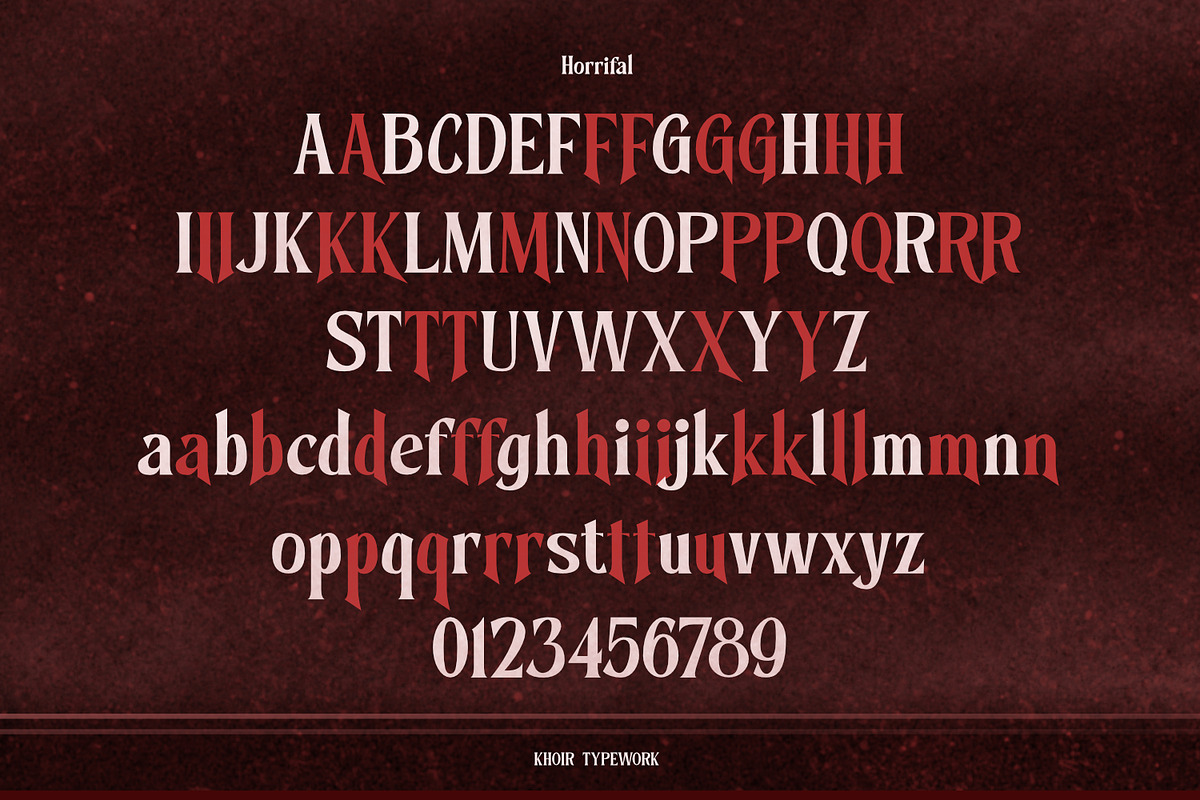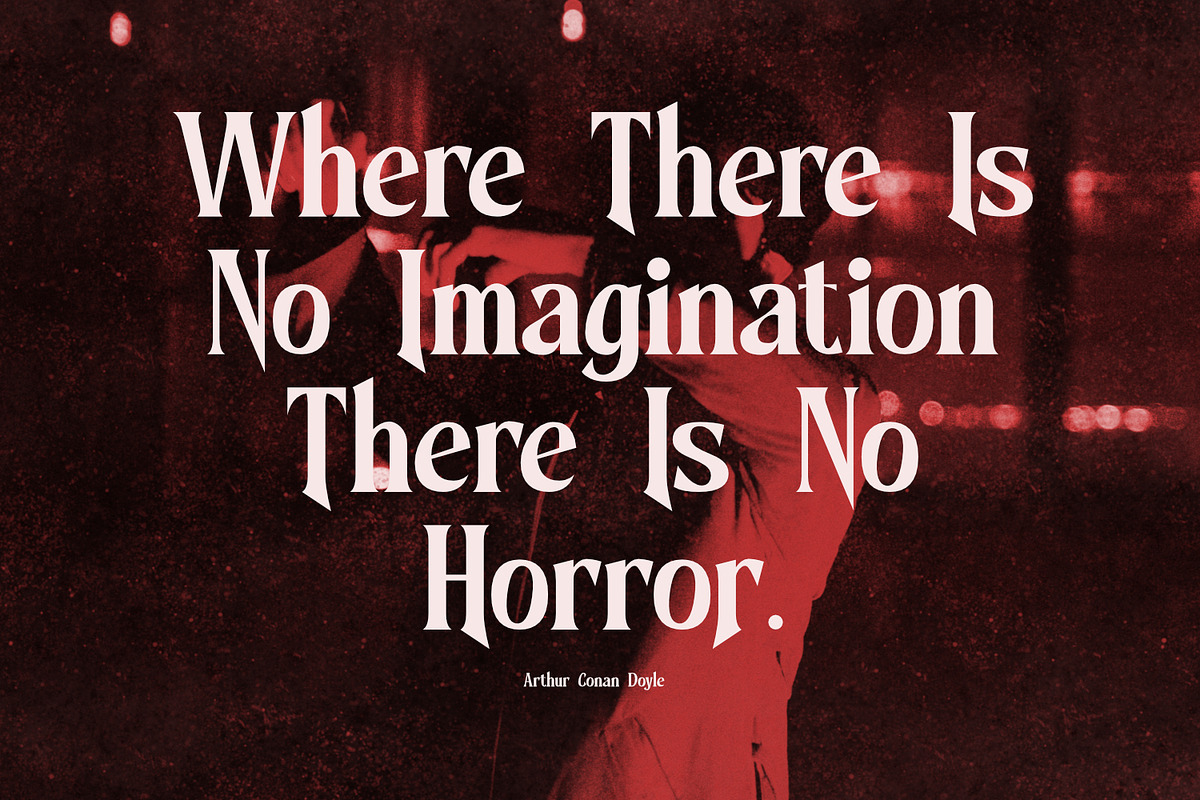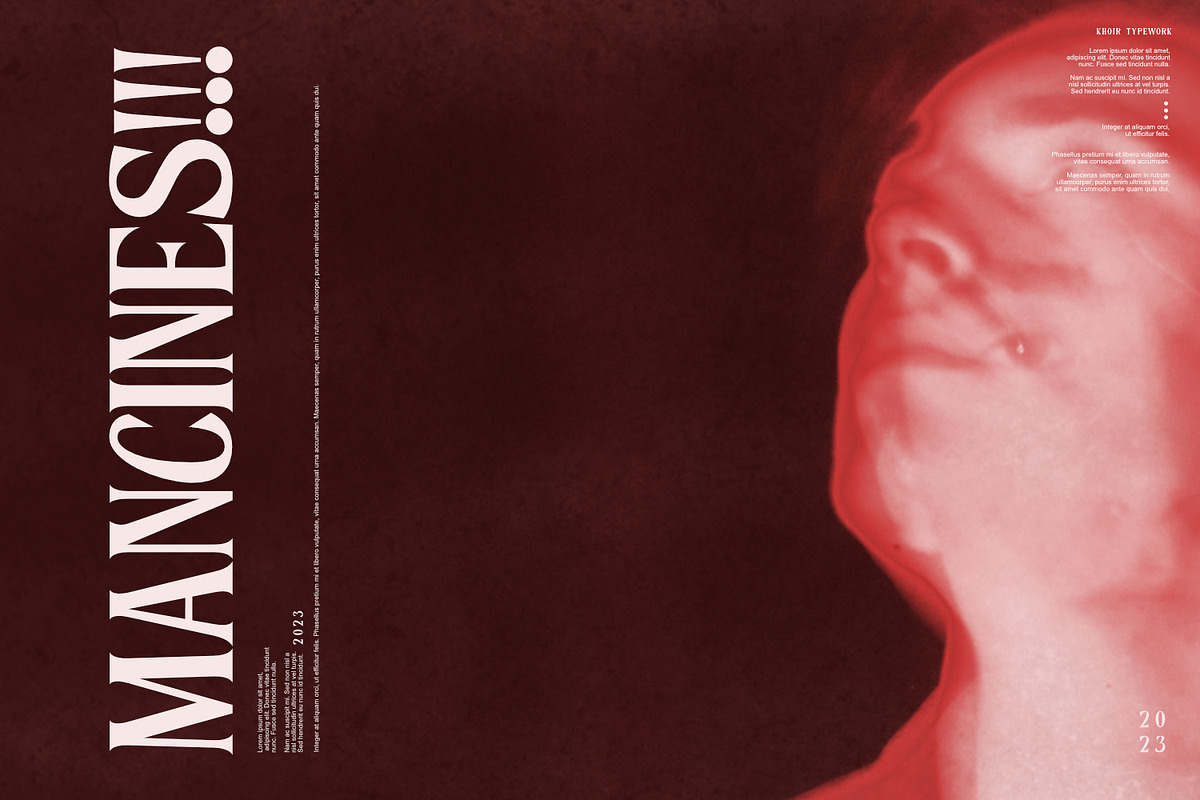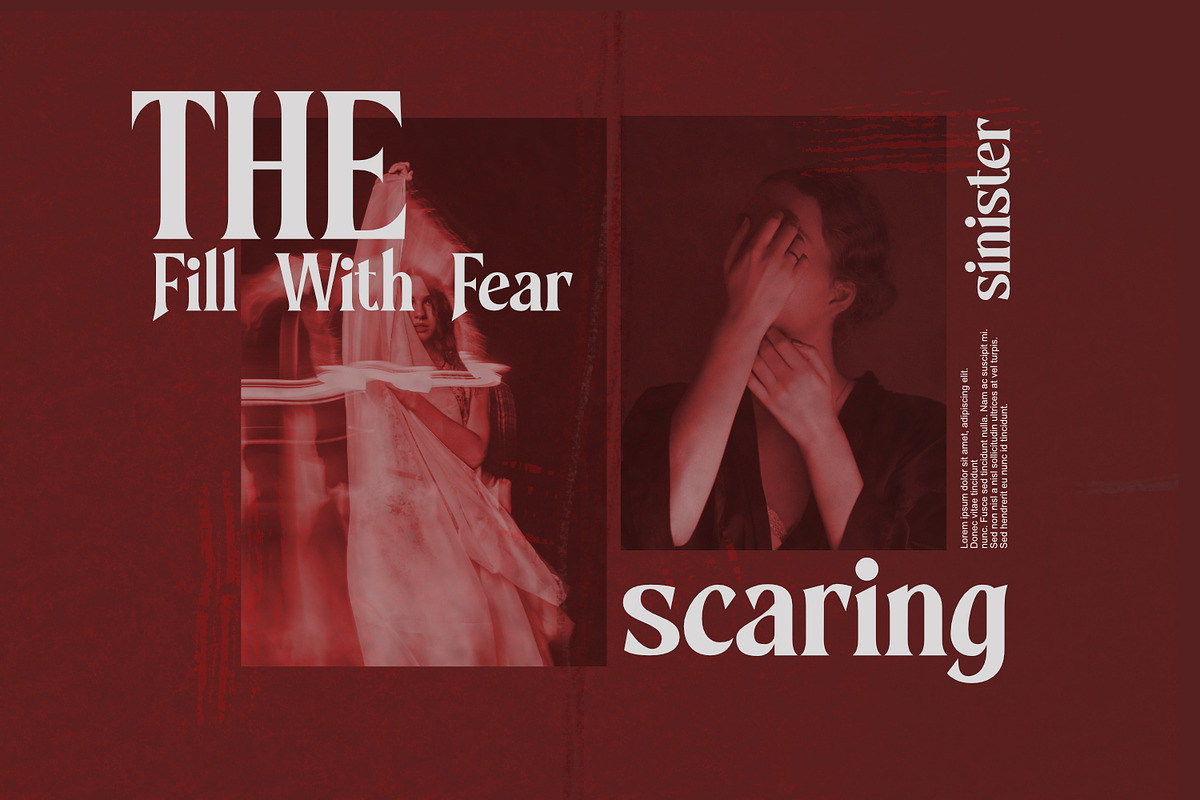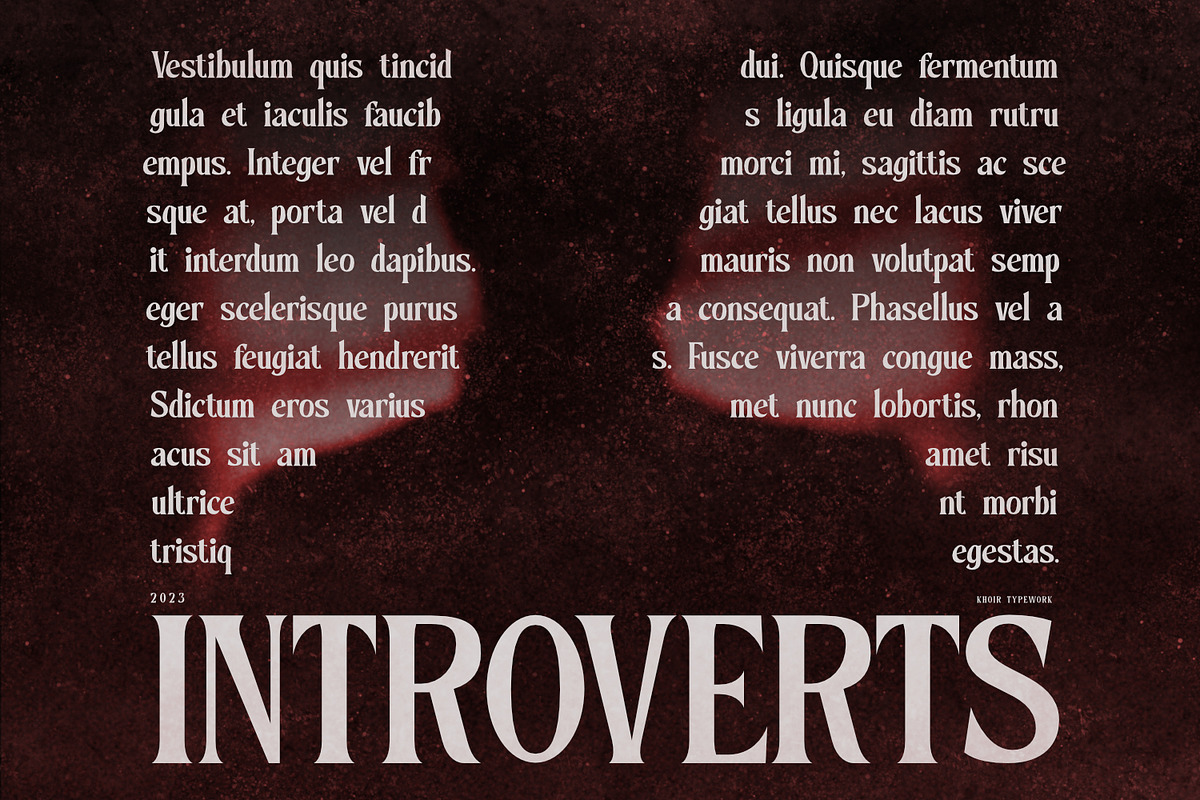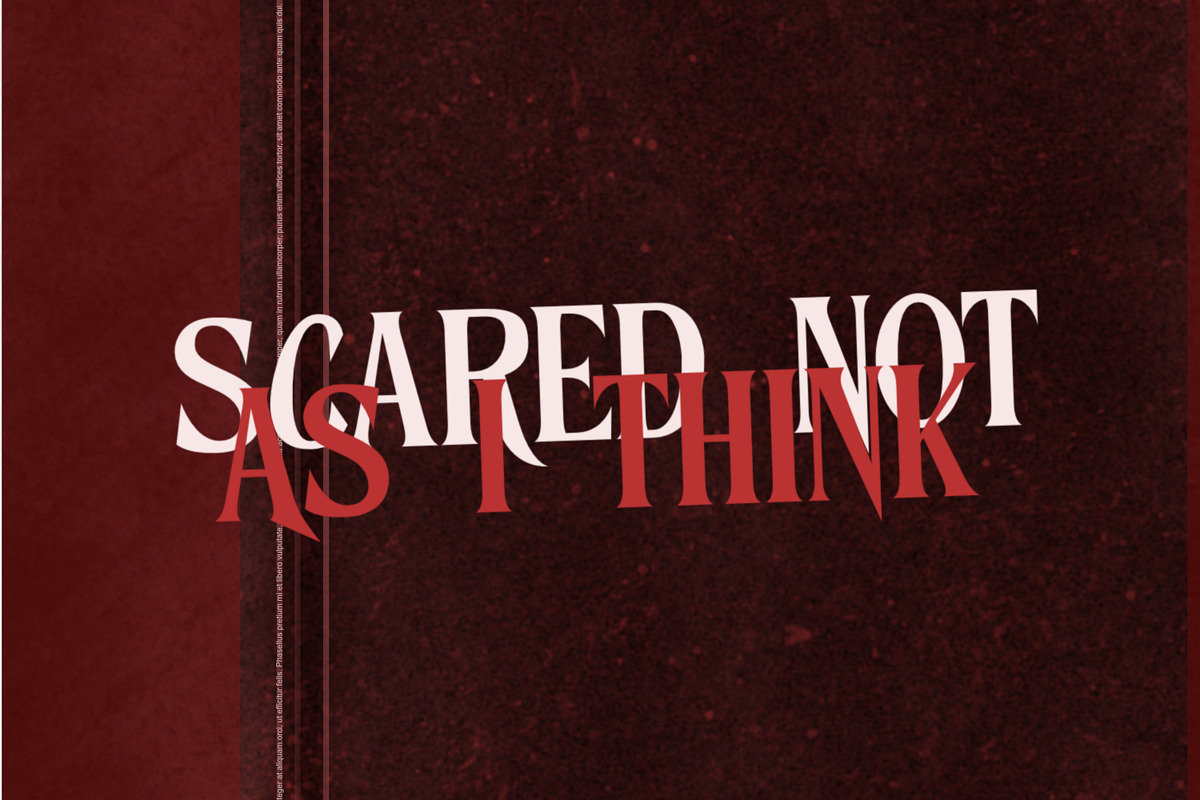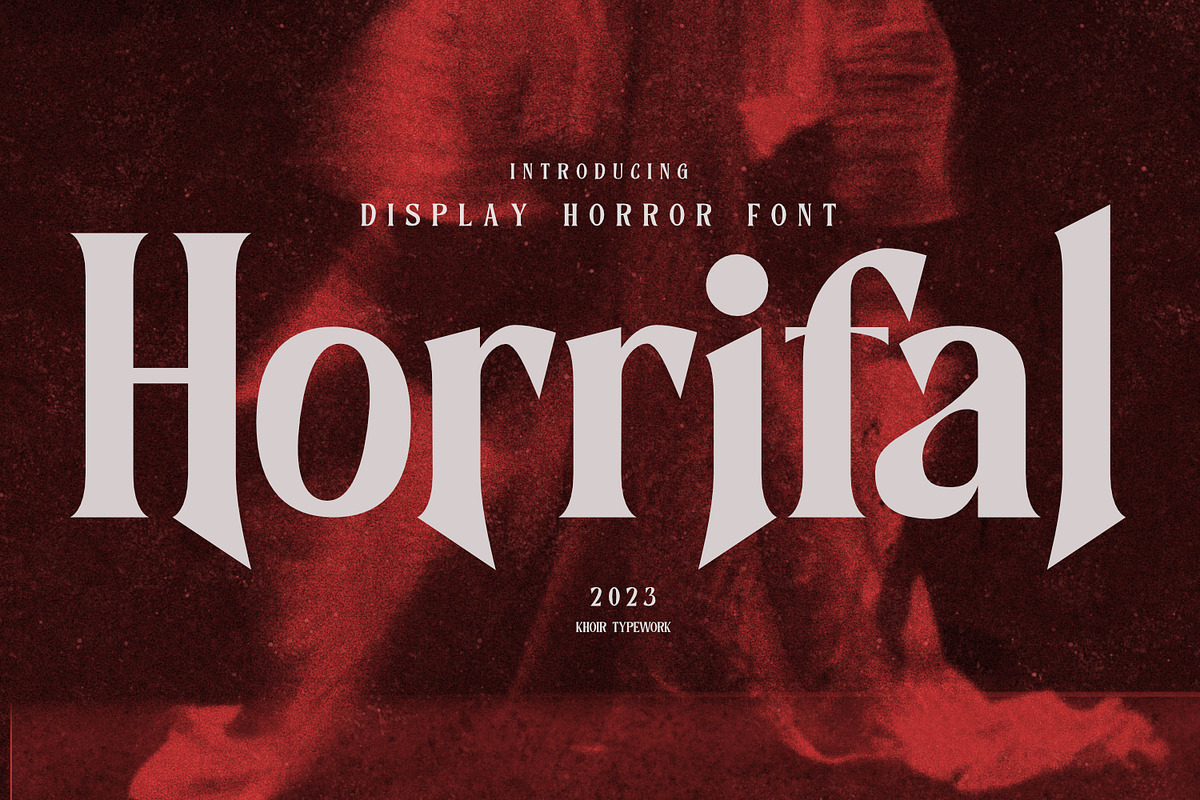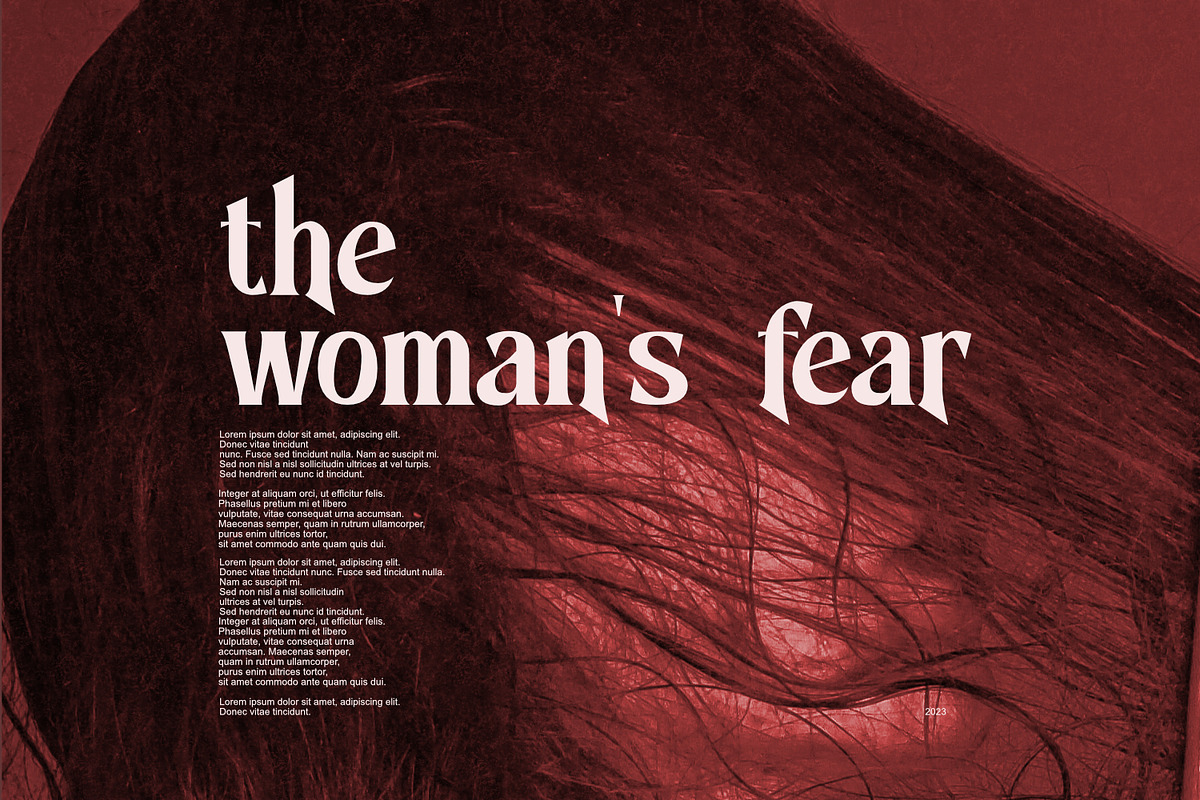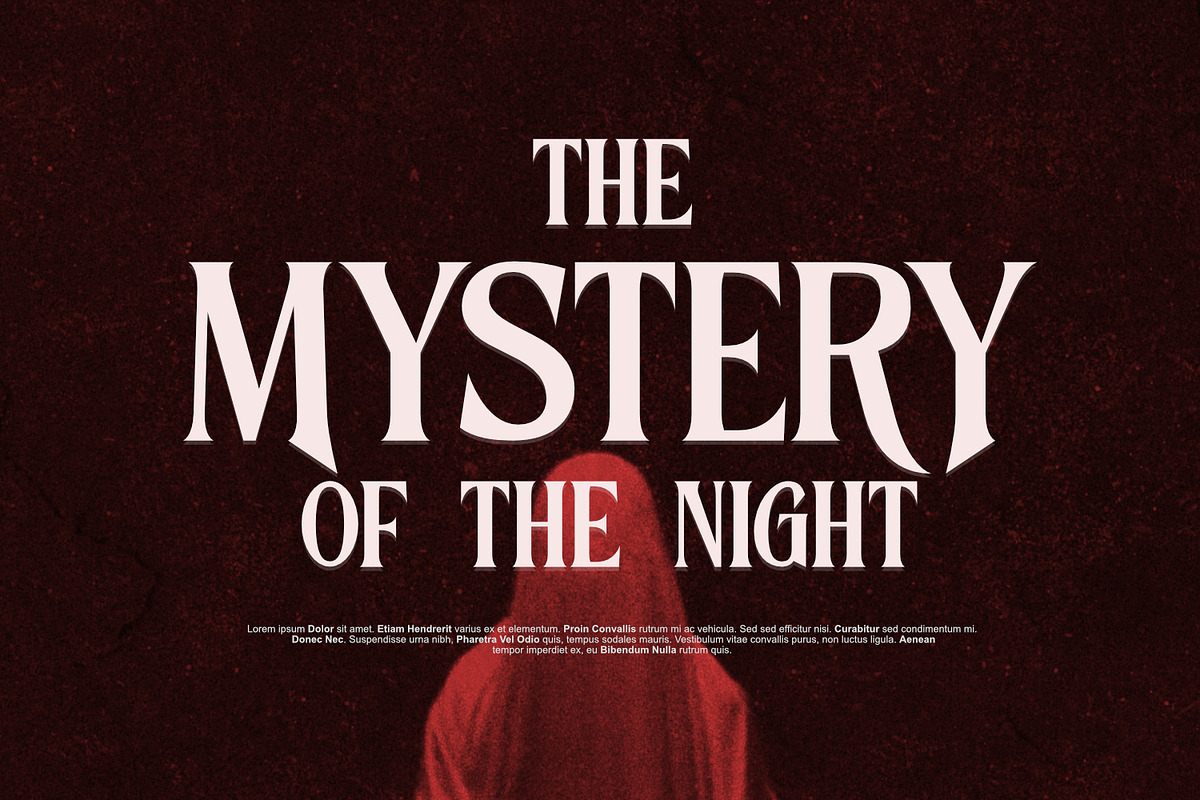
Horrifal - Horror Font
Displays the appearance of a serif font that has a spooky impression but with elegant characteristics that make this horror-themed font different from other horror fonts, with the addition of sharp alternative letters that make the impression even more gripping so it is perfect for movie titles, posters, logotypes and many others.